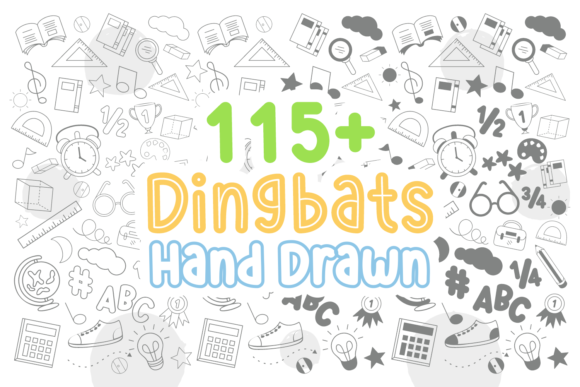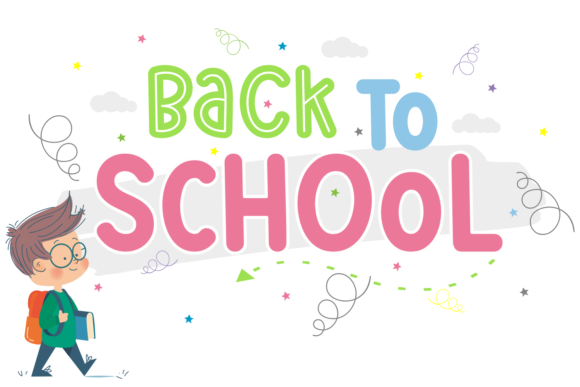
Best School Font
db-ku.com - Script & Handwritten -- Best School is a bold and whimsical handwritten font. This magical and colorful font is perfect for creating unique and lovely designs.